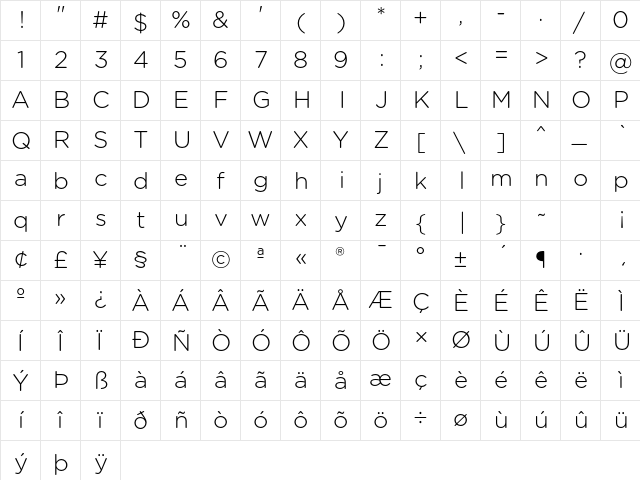
Gotham Rounded Light
| Foundry | Hoefler & Frere-Jones |
| Designer | Tobias Frere-Jones |
Design Context for Gotham Rounded Typeface
Gotham Rounded softens its letterforms with rounded terminals, giving it an approachable, friendly quality that works well in consumer-facing and digital contexts. The delicate stroke weight brings airiness and refinement to layouts.
A natural fit for tech startups, health and wellness brands, children's products, and friendly consumer apps.
Font Pairing: Pairs well with a rounded or humanist sans for body copy, maintaining the friendly tone without relying on Gotham Rounded to carry extended reading.
Pro Tip: Pair Gotham Rounded with a geometric sans for a balanced system — the rounded softness works as a warm counterpoint to harder-edged companions.